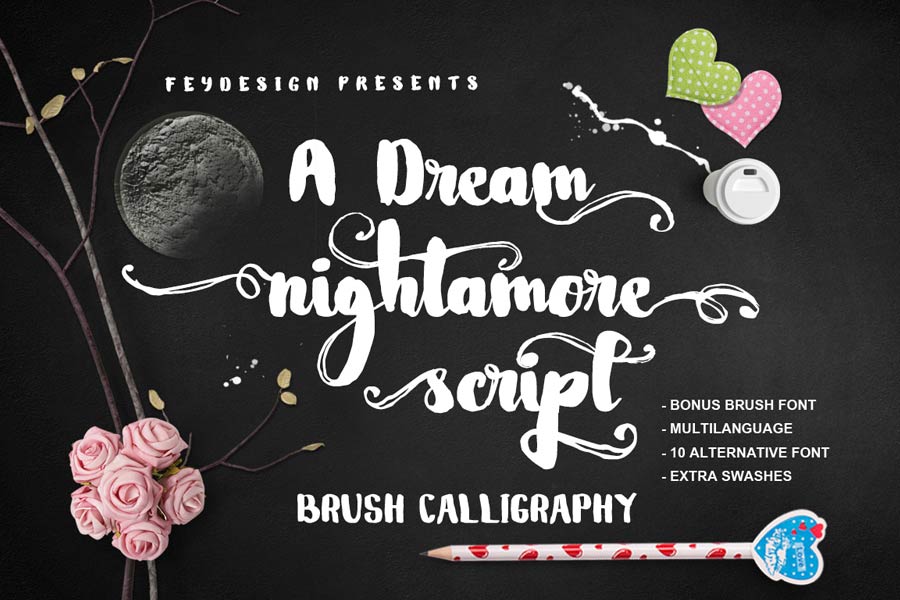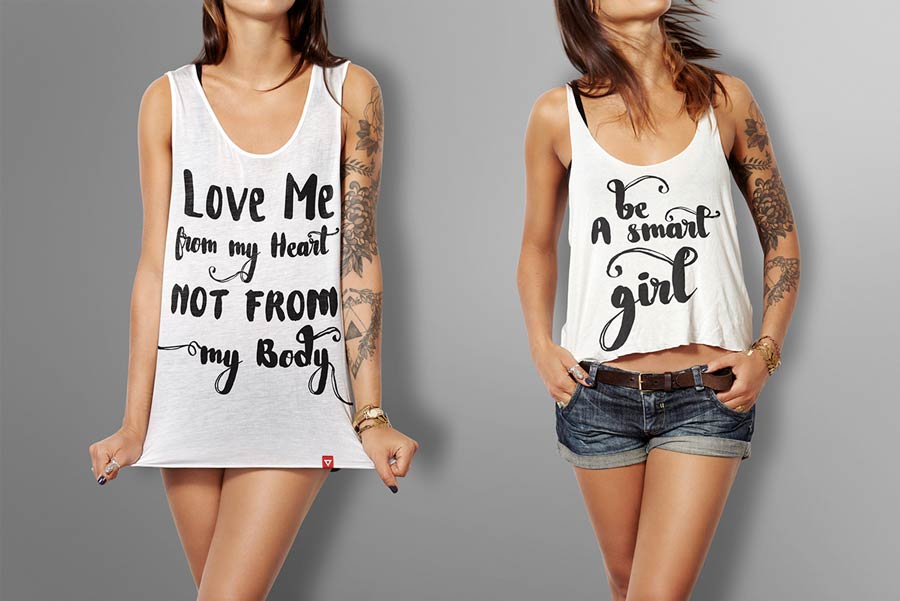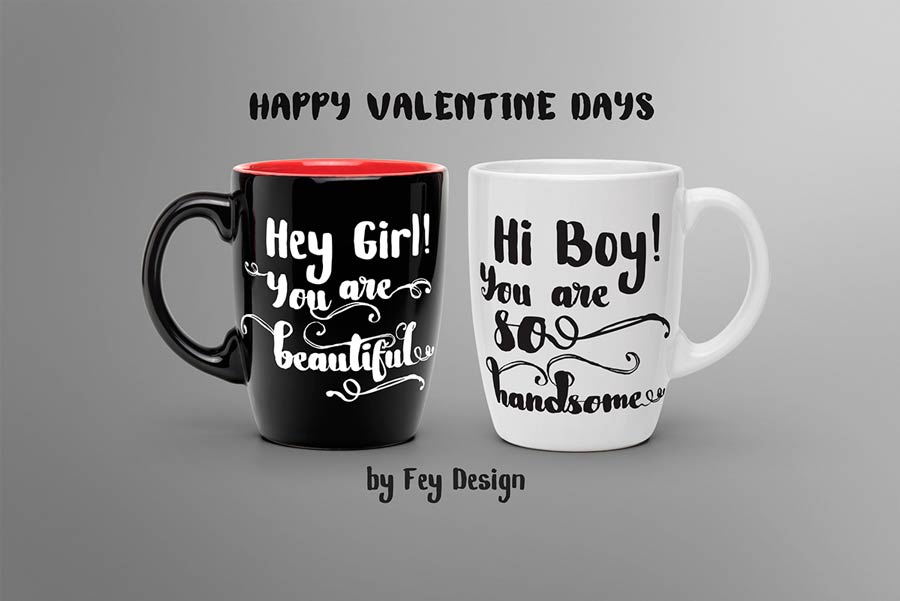
Nightamore is a brush font that comes with many alternative styles, however you can download the original style for free. Comes with big collection of glyphs, this font is suitable for design elements, stickers, wedding designs and more.